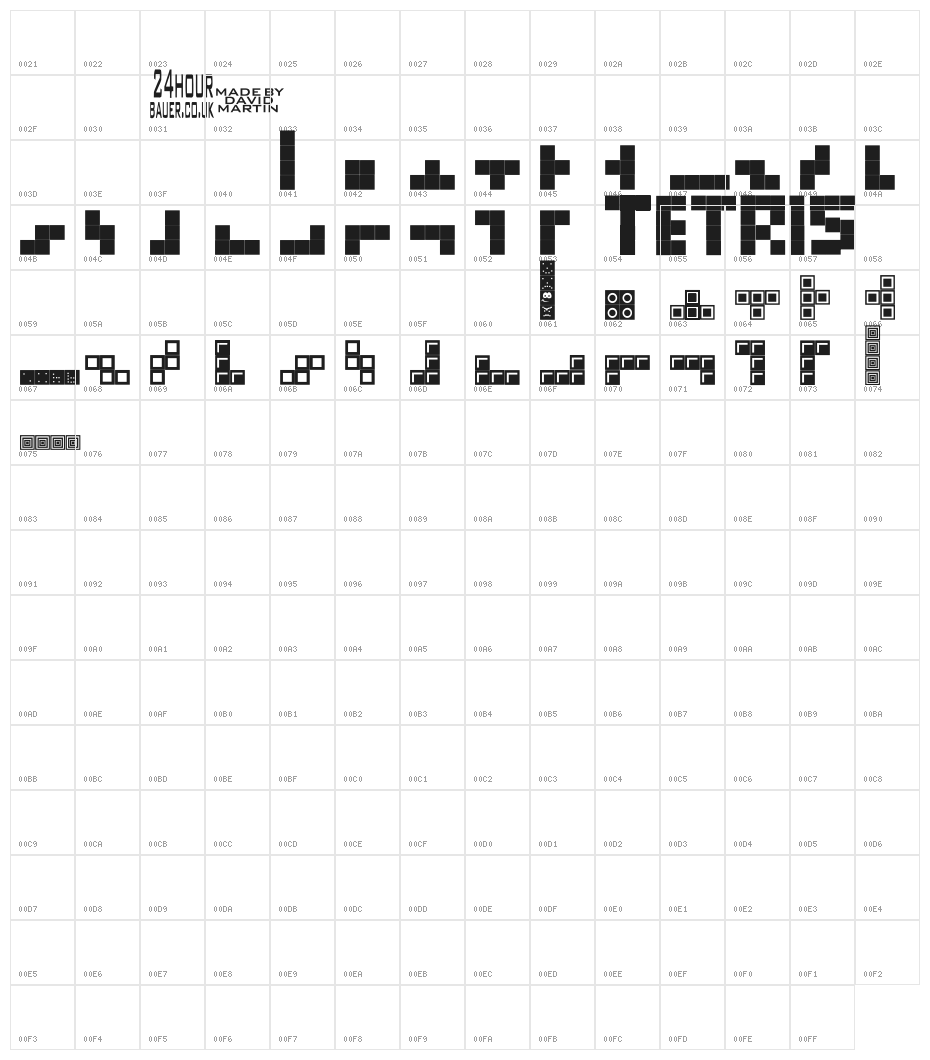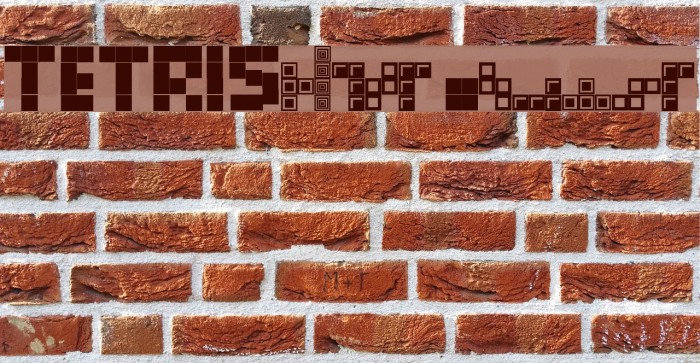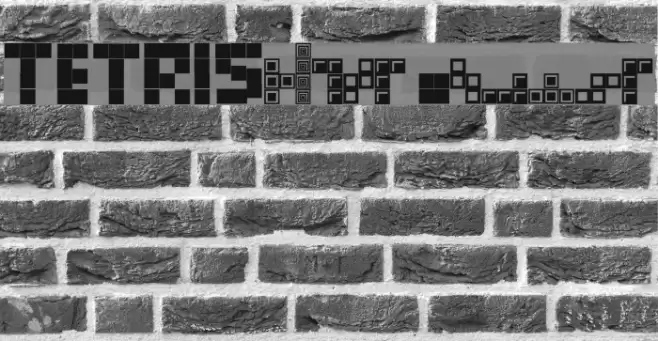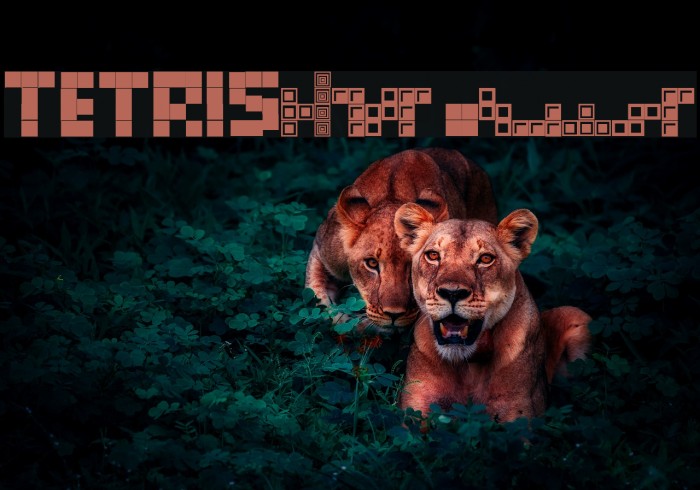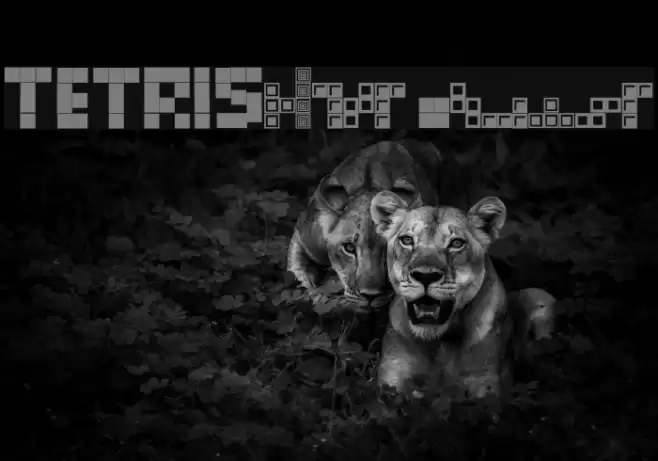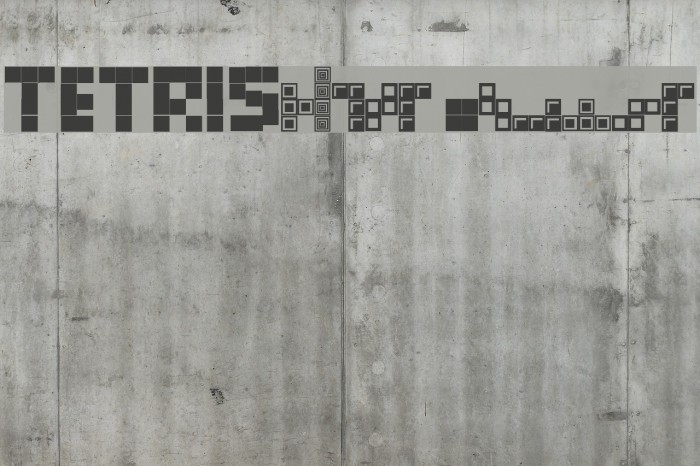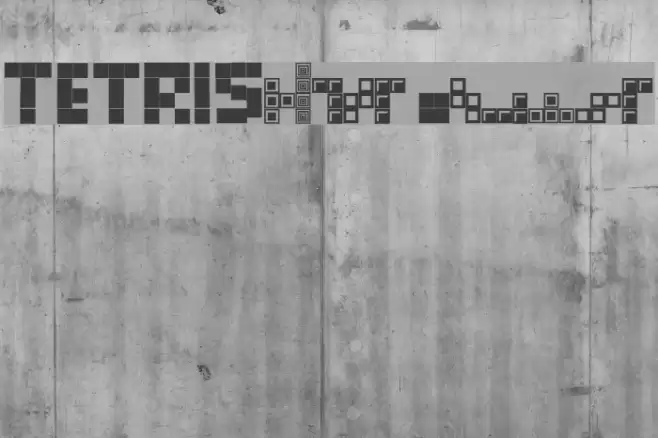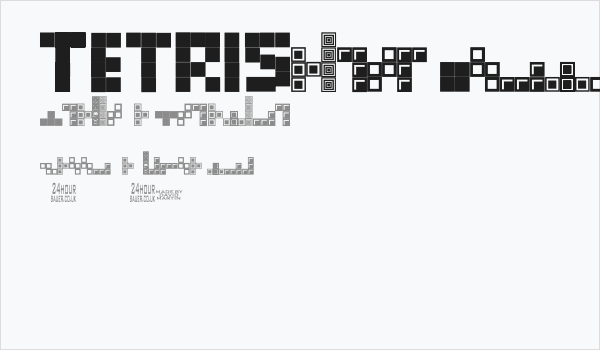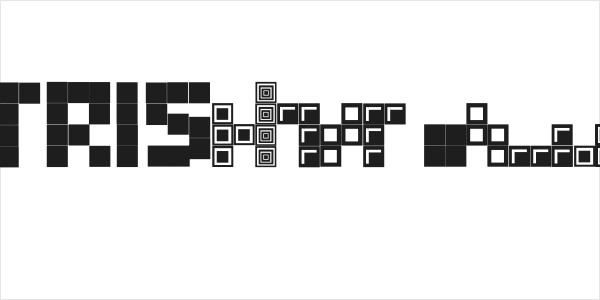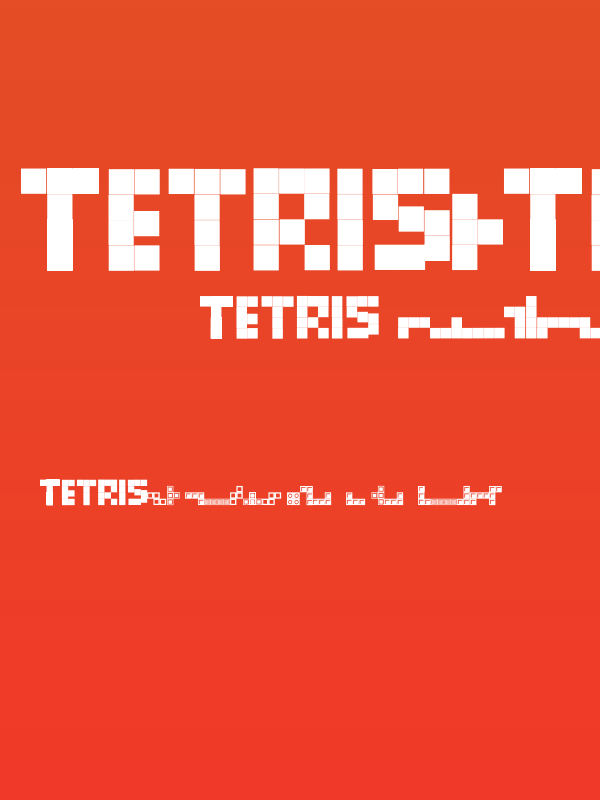
Tetris Blocks Font
Tetris Blocks Description
This font is a playful and nostalgic homage to the classic Tetris video game, featuring characters constructed from blocky, geometric shapes reminiscent of the iconic tetrominoes. Each letter and number is composed of square blocks, creating a pixelated, retro aesthetic that captures the essence of 8-bit gaming. The design is bold and eye-catching, making it ideal for projects that aim to evoke a sense of fun and nostalgia. The font's unique style is both decorative and functional, offering a distinctive look that stands out in any design context.
| Overall Style | Retro, Playful |
| Proposed Projects | Perfect for video game-themed designs, retro posters, playful branding, and any project seeking a nostalgic touch. |